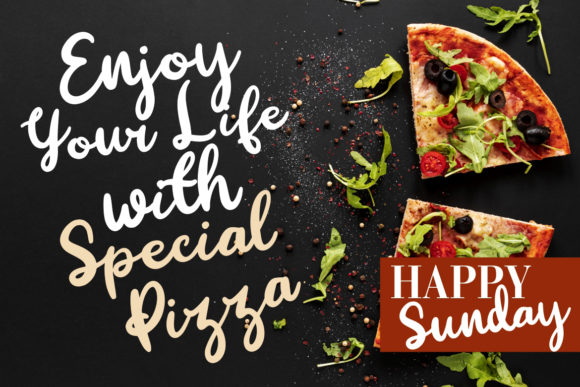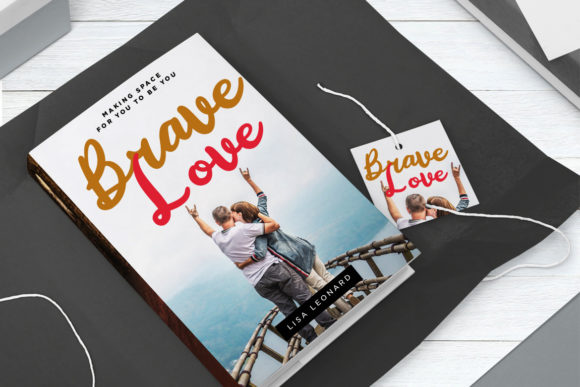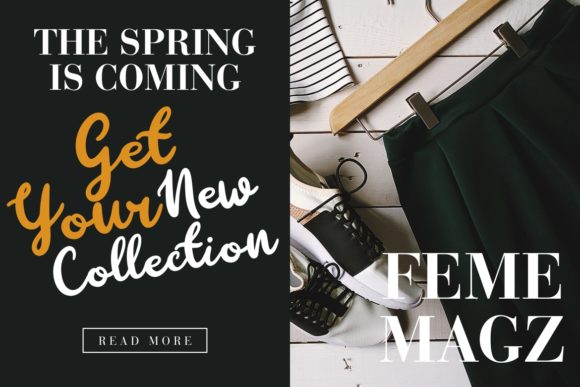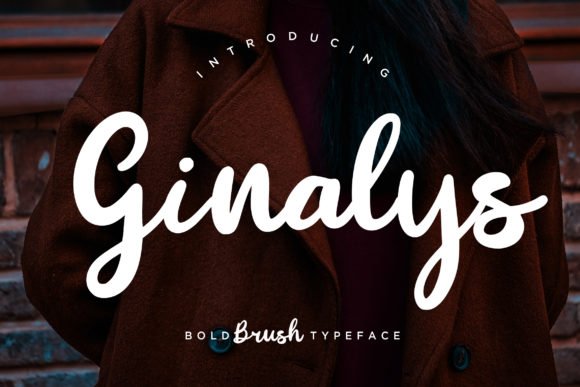
Introduction to Ginalys Font
Ginalys is a bold and chunky script with smooth curves.
Use it to add a unique charm to any design idea .
Why Choose Ginalys Font?